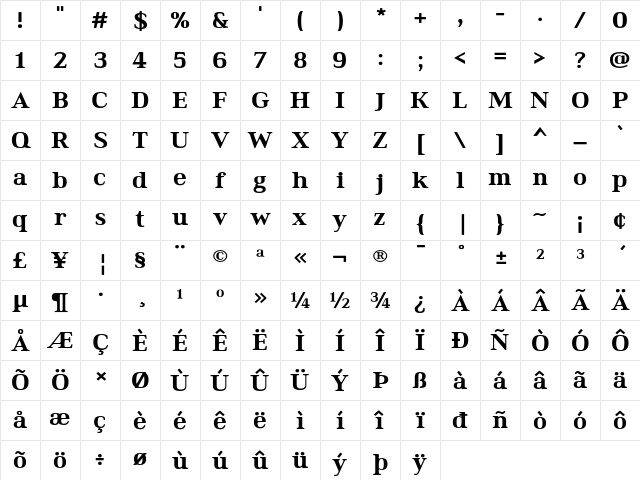
Ethos Expanded Heavy
Foundry: FONTS WITH LOVE
Designer: Florian Klauer
Ethos Expanded Family
Design Context for Ethos Expanded
Ethos Expanded is a composed and adaptable typeface that performs quietly and consistently across a wide range of design contexts.
Pro Tip: Use Ethos Expanded in both headline and body roles to test its range before committing to a single application.